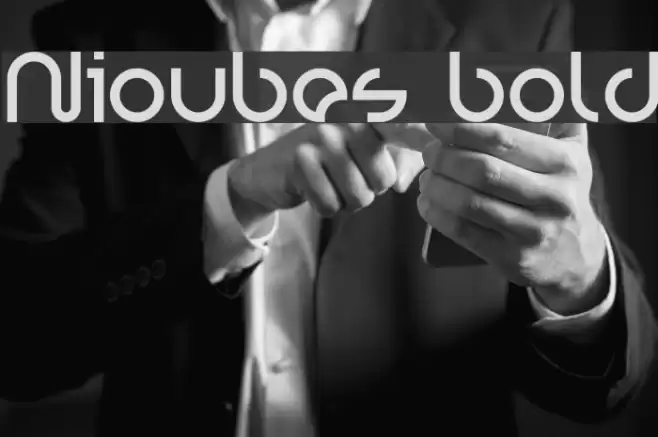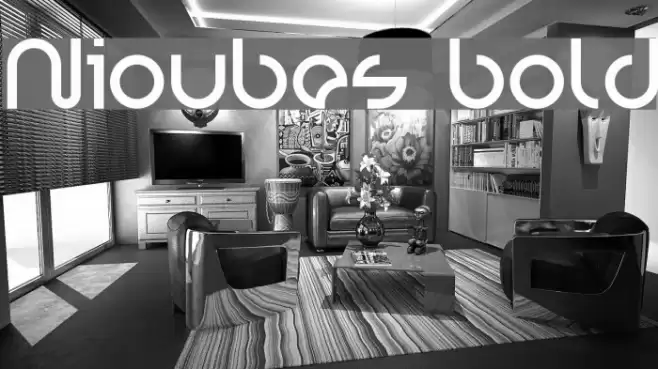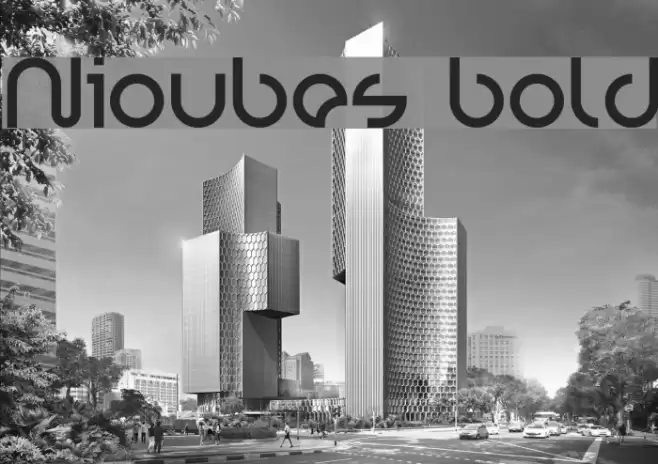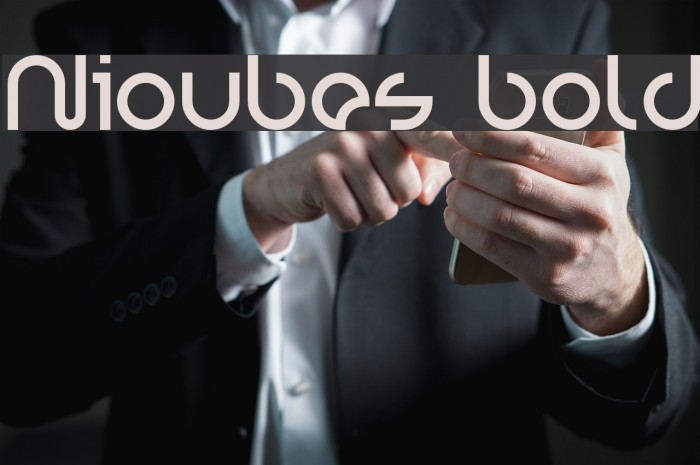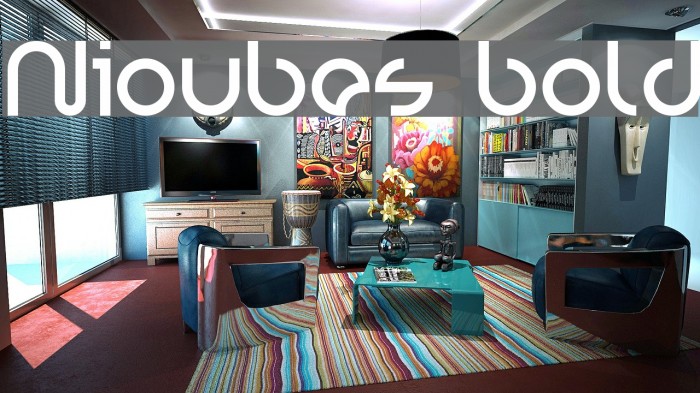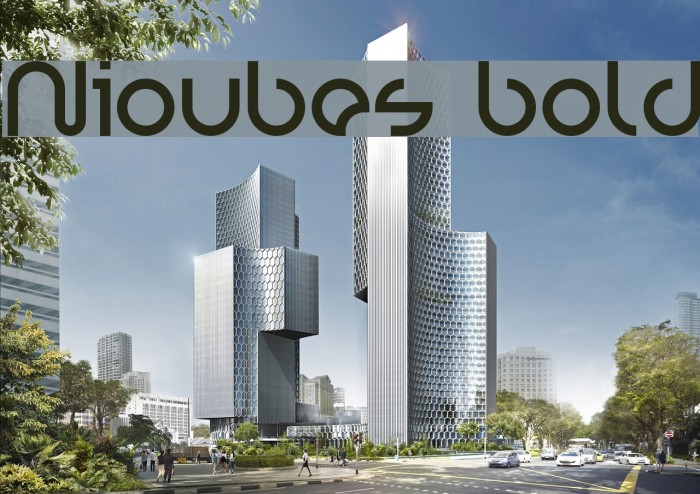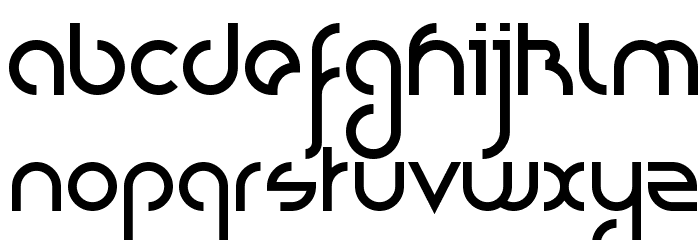
Nioubes bold Font
Nioubes bold Description
This font features a bold and modern design with a unique geometric style. The characters are crafted with a combination of straight lines and smooth curves, creating a futuristic and dynamic appearance. The uppercase and lowercase letters maintain a consistent height, contributing to a uniform look. The font's distinctiveness is highlighted by its creative use of negative space, particularly in letters like 'G', 'J', and 'Q'. The rounded edges and clean lines make it suitable for contemporary design projects. Its bold weight ensures strong visibility, making it ideal for impactful headlines and branding materials.
A bold, geometric font with a modern and futuristic style from Uncategorized fonts.
- Proposed Projects: Ideal for branding, logos, headlines, and modern design projects.